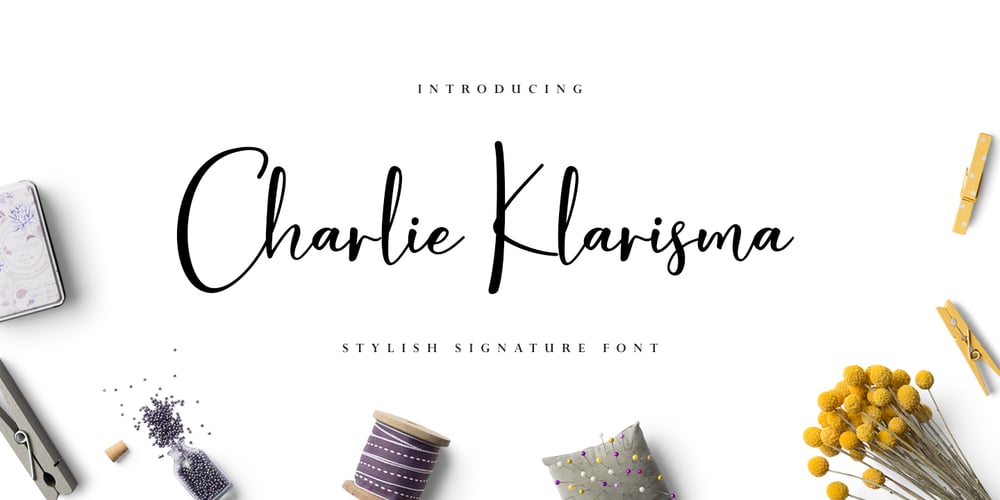
Charlie Klarisma Signature
Charlie Klarisma Signature font
Charlie Klarisma Signature Font Family was designed by Juni Fadil Putra and published by FadeLine Studio. Charlie Klarisma Signature contains 1 styles and family package options. This is a new modern & fresh script with a handwritten and signature style make this font looks elegant, natural, stylish and perfect for any awesome projects that need handwriting taste.This font is very suitable for design needs such as Cricut design, logo’s, branding projects, homeware designs, product packaging, mugs, quotes, posters, shopping bags, logo’s, t-shirts, book covers, name card, invitation cards, greeting cards, and all your other lovely projects.